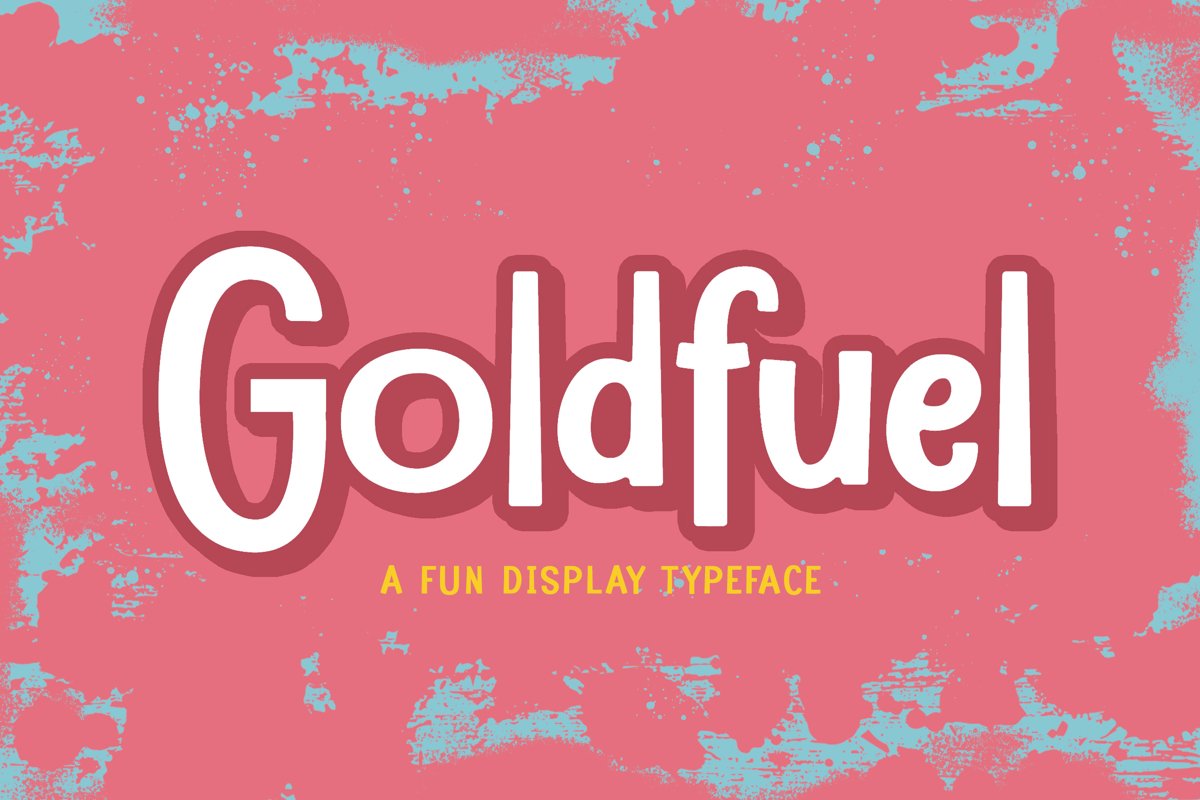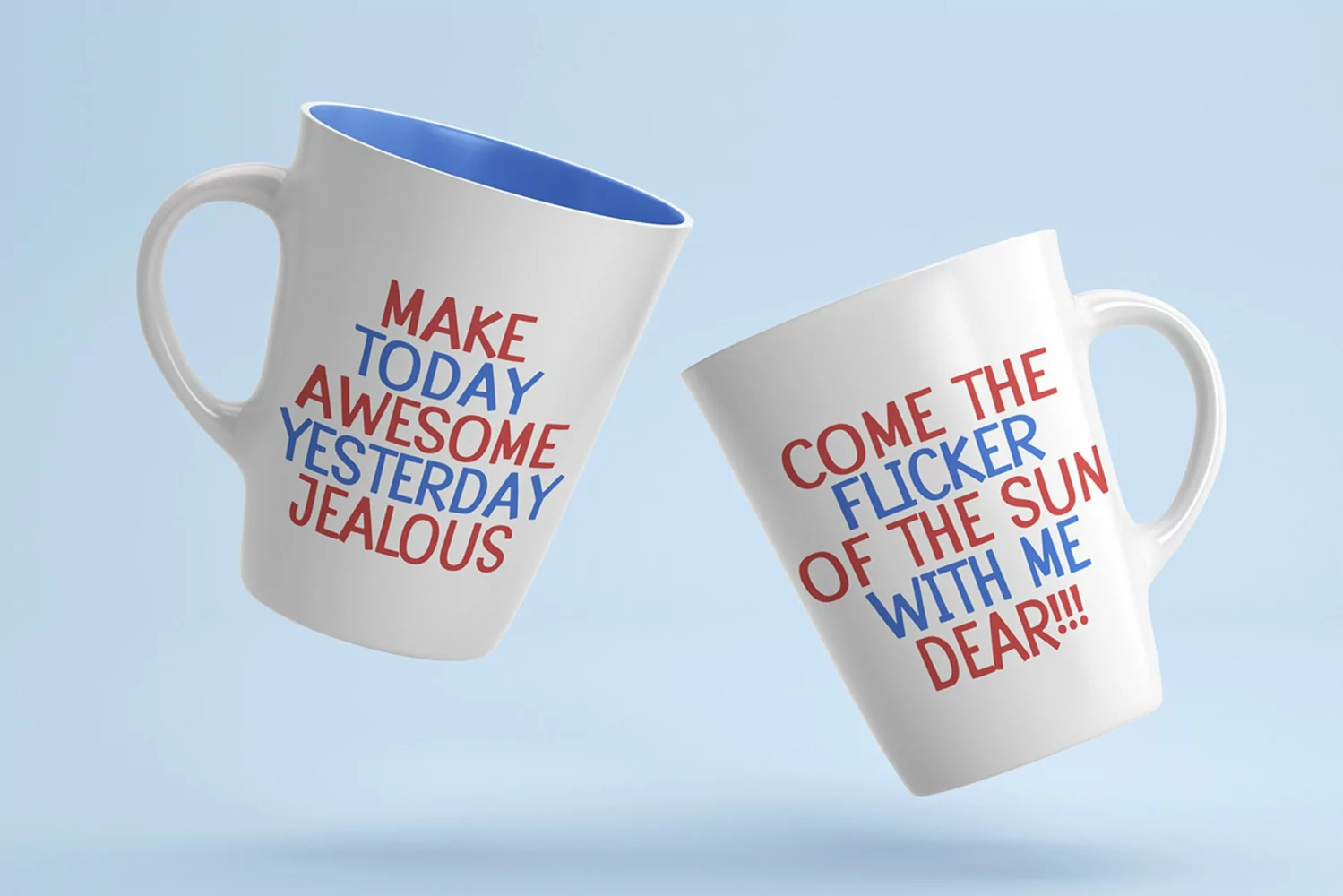
Goldfuel is a display typeface. Perfect for display, poster, branding, logo, logotype, crafting, merchandise, business card, print, t-shirt, pin, header, tittle, packaging, and many more.